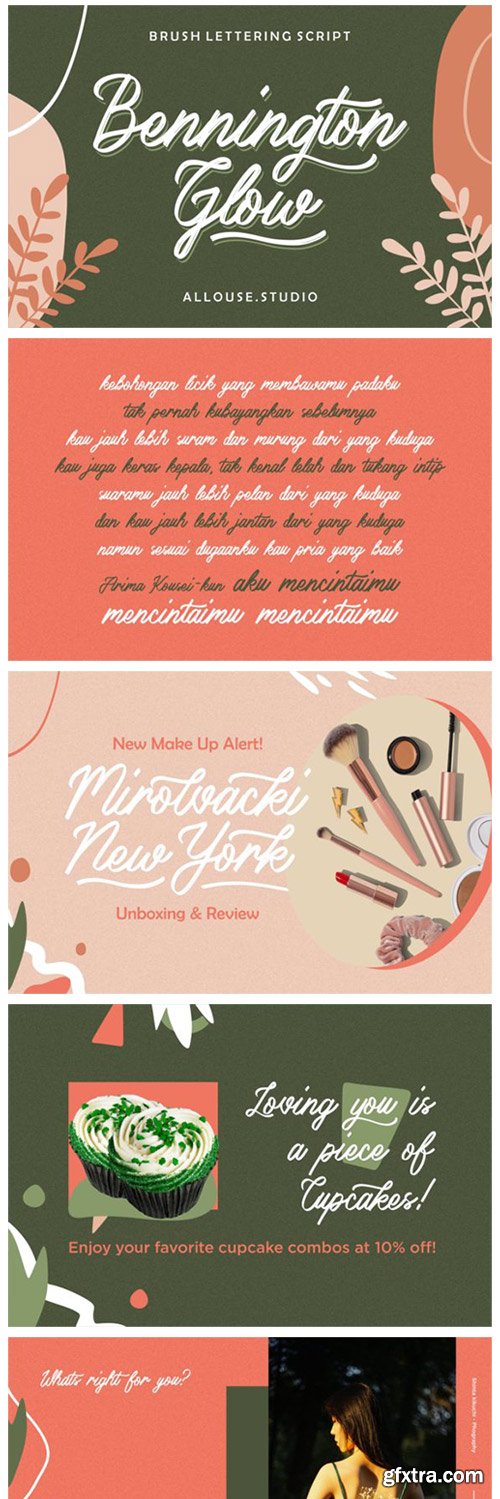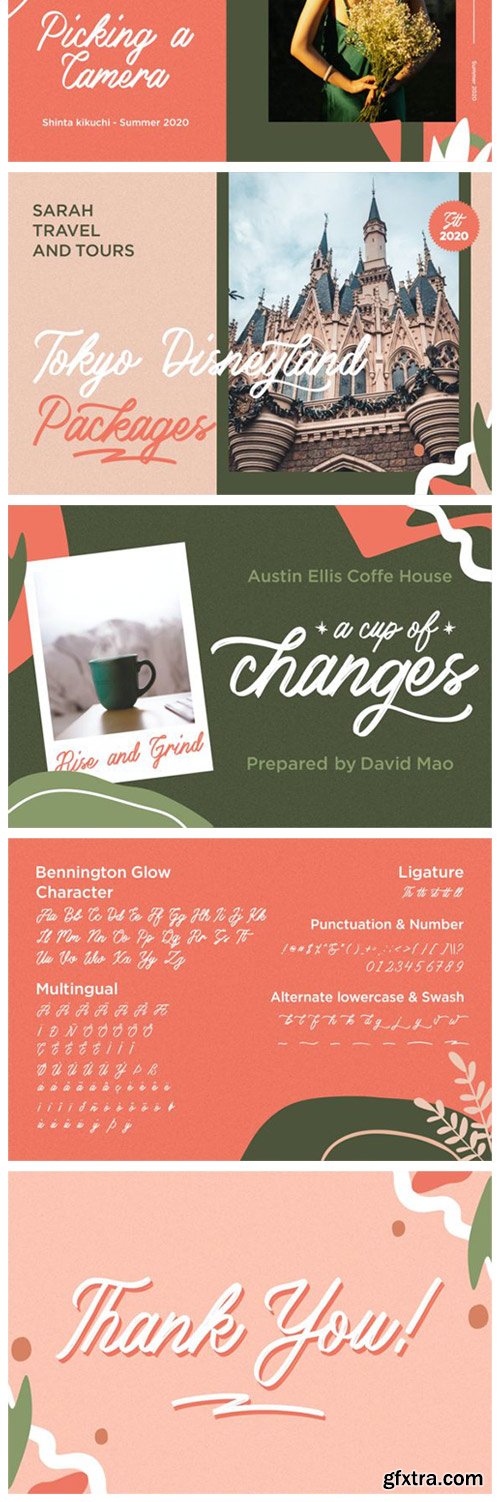
Bennington Glow Font
Bennington Glow is a beautiful and flowing handwritten font, created with the help of a brush pen. Inspired by the retro style, this font will add a touch of elegance to each of your creative ideas.